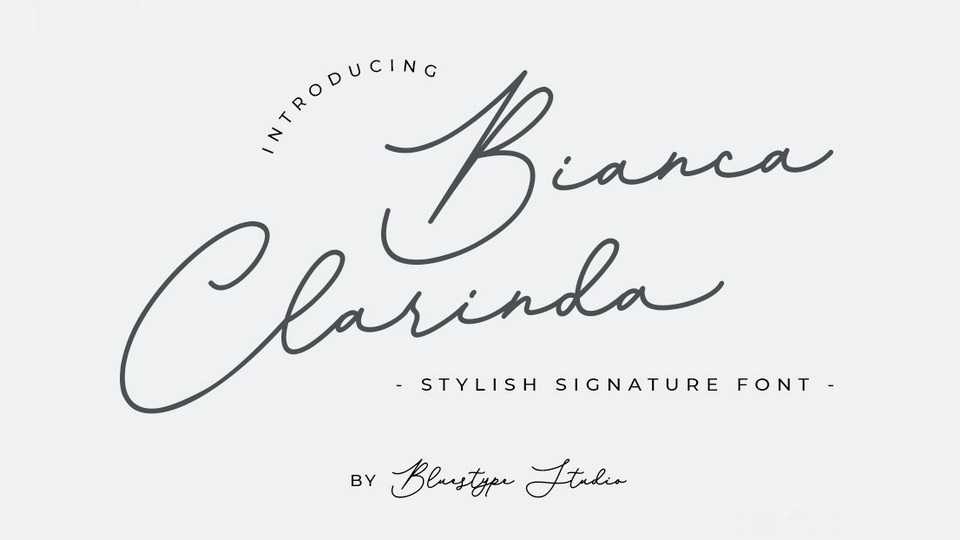
Download Bianca Clarinda font, a stunning handwritten signature typeface. Bianca Clarinda font is the perfect font for adding a personal touch to your upcoming projects.